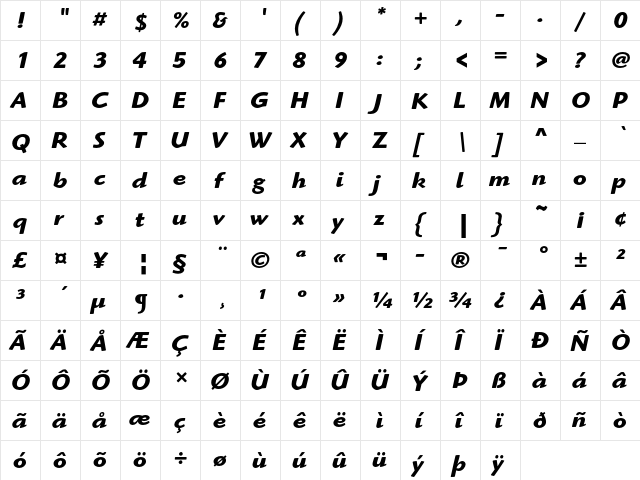
ITC Highlander Bold Italic Font Preview
ITC Highlander Bold Italic
Design Context for ITC Highlander Typeface
ITC Highlander is a composed and adaptable typeface that performs quietly and consistently across a wide range of design contexts. The dynamic lean of this cut emphasises speed and emphasis in any layout. The heavy weight commands attention and anchors typographic hierarchies.
Pro Tip: Use ITC Highlander for emphasis, pull quotes, and subheadings where its slanted energy can add rhythm to the layout.